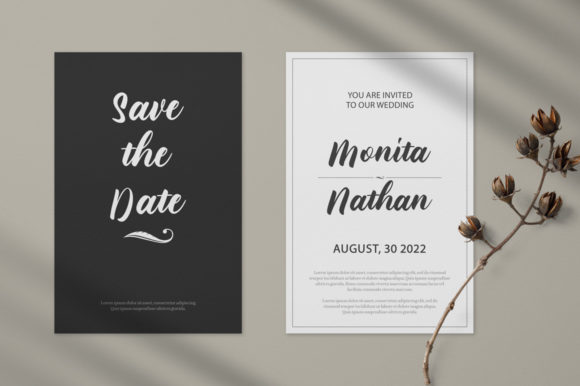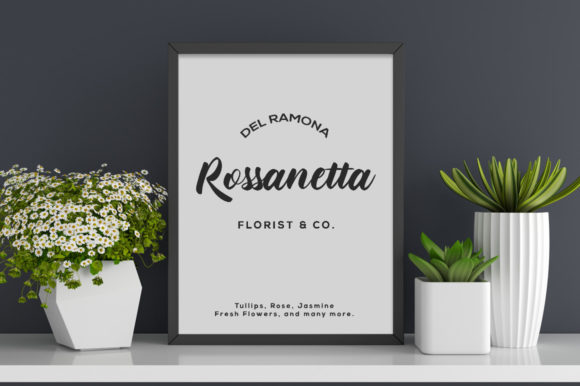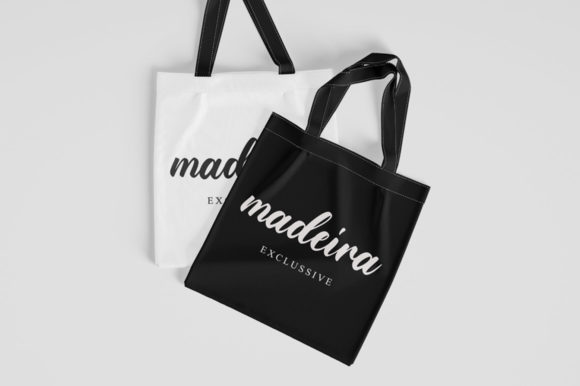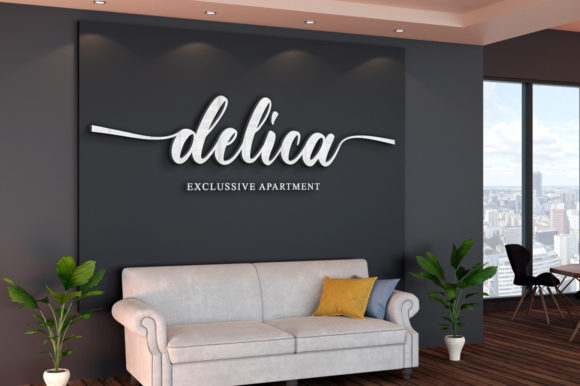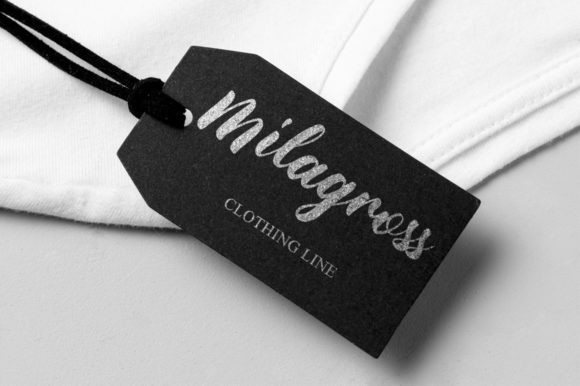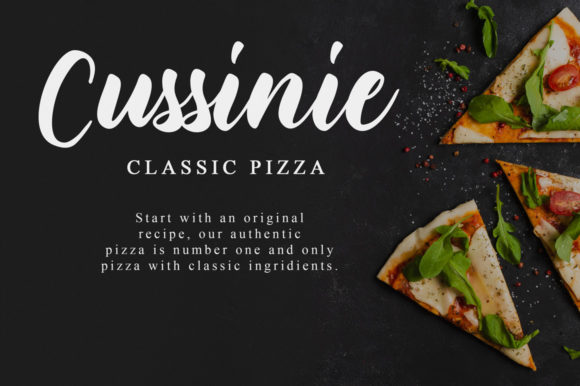
Introduction to Bellugra Font
Bellugra is a lovely script font featuring charming, playful characters that seem to dance along the baseline.
Add this font to your most creative ideas, and notice how it makes them stand out Bellugra is PUA encoded which means you can access all of the beautiful glyphs and swashes with ease.